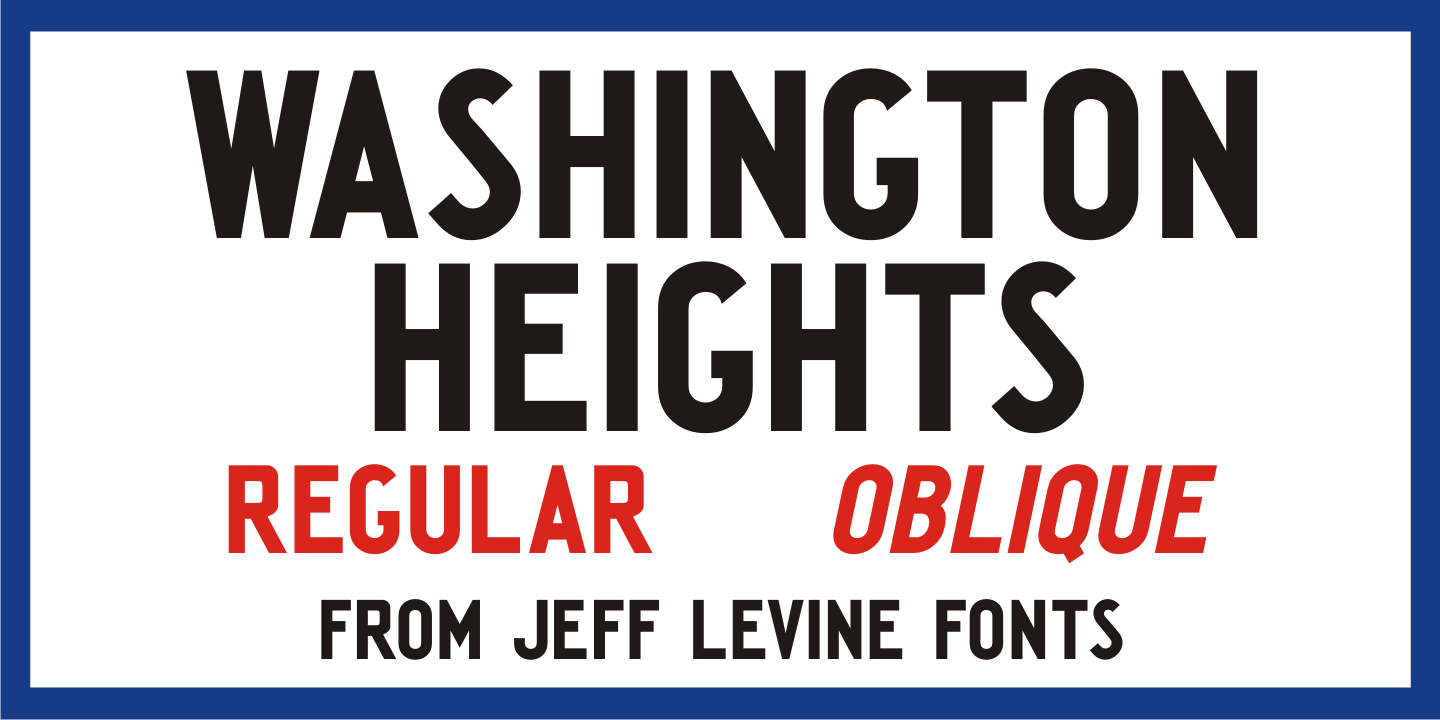
Washington Heights JNL Font is ideal for New York City tourism materials, urban neighborhood branding, metropolitan transit signage, city borough celebrations, multicultural community events, urban development projects, local business district marketing, cultural diversity campaigns, neighborhood association communications, and authentic NYC lifestyle promotions. This distinctive typeface excels in applications where urban authenticity and neighborhood character need to be communicated with genuine community spirit and metropolitan sophistication that captures the essence of diverse New York neighborhoods and their unique cultural identities.
What makes Washington Heights JNL Font exciting is its remarkable ability to embody the vibrant energy and multicultural richness of one of New York's most dynamic neighborhoods through its boldly crafted letterforms that project the confidence and cultural pride that define authentic urban communities. The font captures the essence of neighborhood identity with its strong construction and community-minded proportions that suggest the resilience of urban dwellers and the cultural fusion that makes metropolitan neighborhoods so distinctive. Its carefully balanced character details and community personality create an atmosphere of authentic urban life that resonates with city residents, cultural organizations, and businesses who value genuine neighborhood character and multicultural celebration.
The Washington Heights JNL Font family typically includes Regular and Bold weights, each maintaining the signature urban characteristics and neighborhood authenticity. Some versions offer condensed variants for efficient street signage, extended styles for maximum community impact, and alternative character sets with multicultural symbol support. The family may also include specialized urban elements, transit-inspired symbols, and neighborhood-specific characters designed for authentic NYC community applications requiring genuine metropolitan representation.
Whether you're creating urban community brands, neighborhood celebration materials, or authentic NYC cultural communications, Washington Heights JNL Font Free Download delivers the perfect metropolitan authenticity your community-focused projects deserve. Its neighborhood character and urban styling make it an invaluable choice for community organizations, local businesses, and cultural institutions working in urban development, neighborhood advocacy, and multicultural celebration sectors where authentic community spirit and genuine metropolitan character are essential for connecting with diverse urban audiences who value real neighborhood pride.